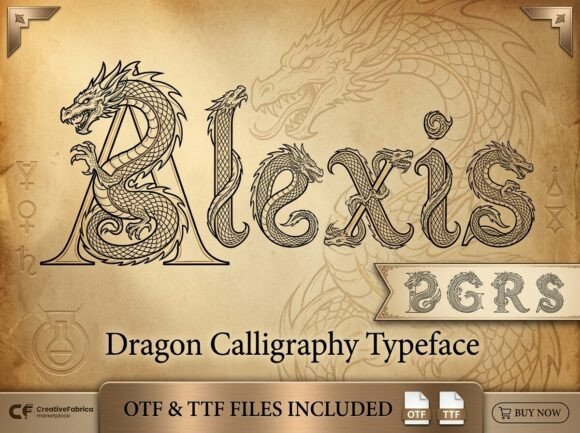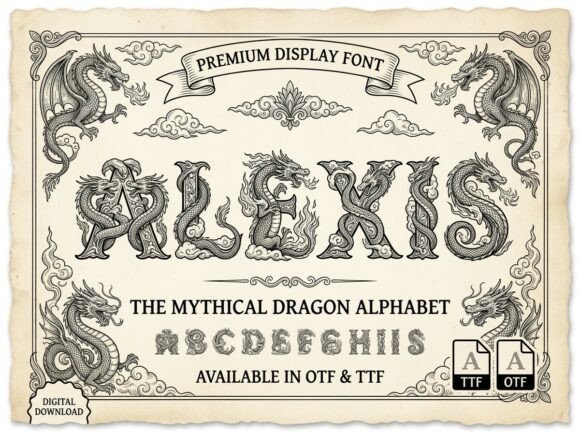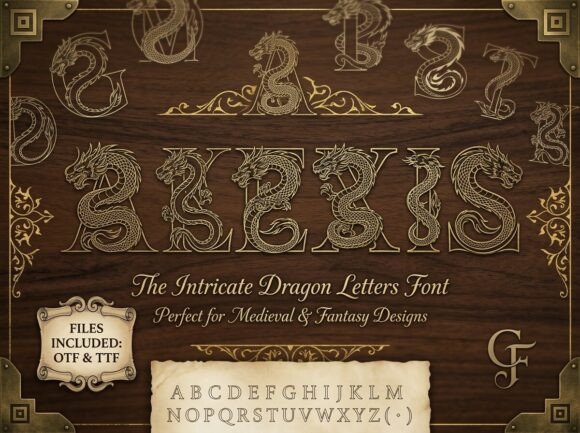
Unleash the Power of Alexis Font: The Ultimate Display Font for High-Fantasy and Heavy Metal Enthusiasts
Are you a designer, craftsperson, or simply a fan of high-fantasy and heavy metal aesthetics? Look no further than the Alexis Font, a show-stopping display font that is sure to elevate your visual projects to new heights. Inspired by heraldic art and high-fantasy lore, this magnificent font collection is comprised of intricately detailed dragon letterforms that exude architectural strength and visual power.
The Inspiration Behind Alexis Font
The Alexis Font draws inspiration from the majestic and ancient world of heraldic art, where coats of arms and symbolic creatures were used to represent power, strength, and nobility. The font’s creator aimed to capture the essence of this timeless art form and infuse it with the fantastical and mythical elements of high-fantasy lore. The result is a font that is both a tribute to the past and a bold statement for the present.
What Makes Alexis Font So Unique?
Alexis Font is more than just a font – it’s a collection of majestic, coiled dragon letterforms that are meticulously crafted to convey a sense of strength, power, and grandeur. Each letter is designed to stand alone as a graphic icon, making it perfect for use in a variety of applications, from high-fantasy book covers to heavy metal album art. The font’s imposing and ancient aesthetic is sure to grab attention and leave a lasting impression on your audience.
Best Use Cases for Alexis Font
So, where can you use this incredible font to make a statement? Here are some of the best use cases for Alexis Font:
- High-Fantasy Book Covers: Add a touch of epic fantasy to your book covers with Alexis Font. The font’s majestic and adventurous feel is perfect for fantasy novels, sci-fi books, and otherworldly tales.
- Tabletop Gaming Branding: Take your tabletop gaming branding to the next level with Alexis Font. The font’s bold and imposing aesthetic is ideal for game logos, packaging, and marketing materials.
- Cinematic Titles: Create show-stopping cinematic titles with Alexis Font. The font’s dramatic and attention-grabbing style is perfect for movie trailers, title sequences, and film posters.
- Heavy Metal Album Art: Give your heavy metal album art a bold and fierce makeover with Alexis Font. The font’s aggressive and powerful aesthetic is sure to appeal to fans of heavy metal music.
Key Features of Alexis Font
Here are some of the key features that make Alexis Font a standout display font:
- Meticulously Detailed Dragon Letterforms: Each letterform is intricately crafted to resemble a coiled dragon, adding a level of detail and realism to your designs.
- Architectural Strength: The font’s bold and imposing aesthetic gives it an architectural strength that is both ancient and imposing.
- Functions as Both a Headline Font and Graphic Icons: Use Alexis Font as a powerhouse headline font or as a series of independent graphic icons – the choice is yours.
In conclusion, Alexis Font is a game-changing display font that is sure to elevate your visual projects to new heights. With its meticulously detailed dragon letterforms, architectural strength, and versatility, this font collection is a must-have for designers, craftspersons, and fans of high-fantasy and heavy metal aesthetics. So why wait? Unleash the power of Alexis Font today and forge a path of visual power that will leave a lasting impression on your audience.